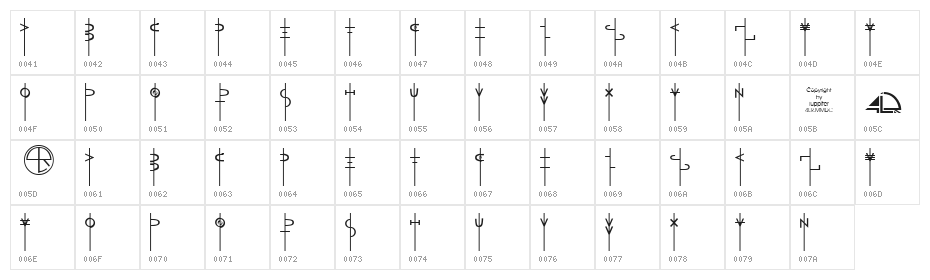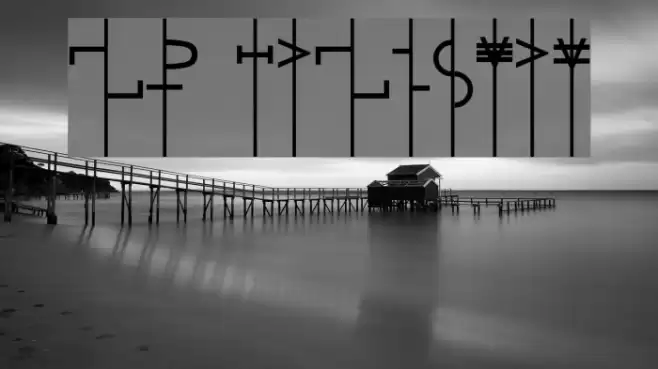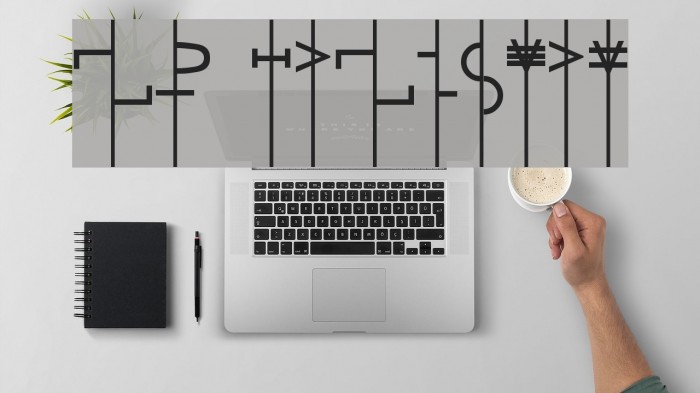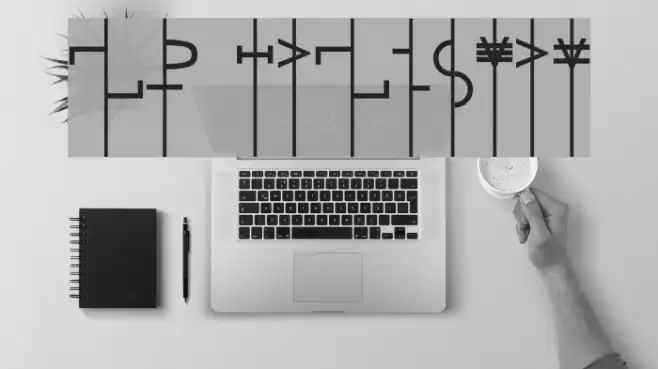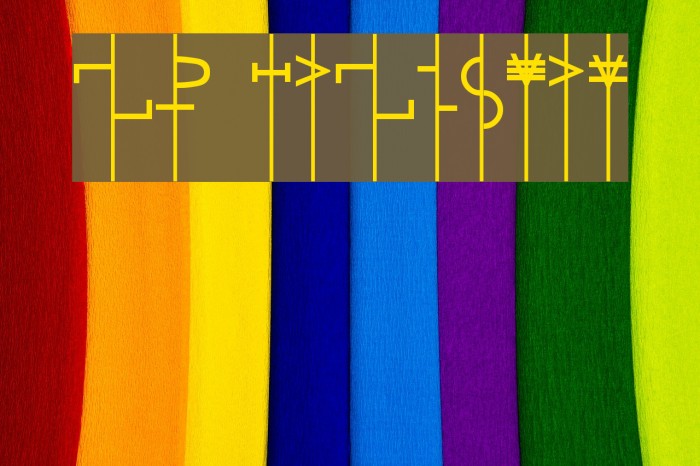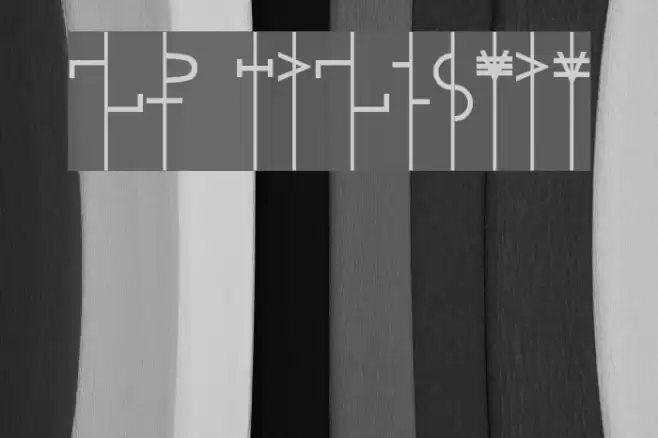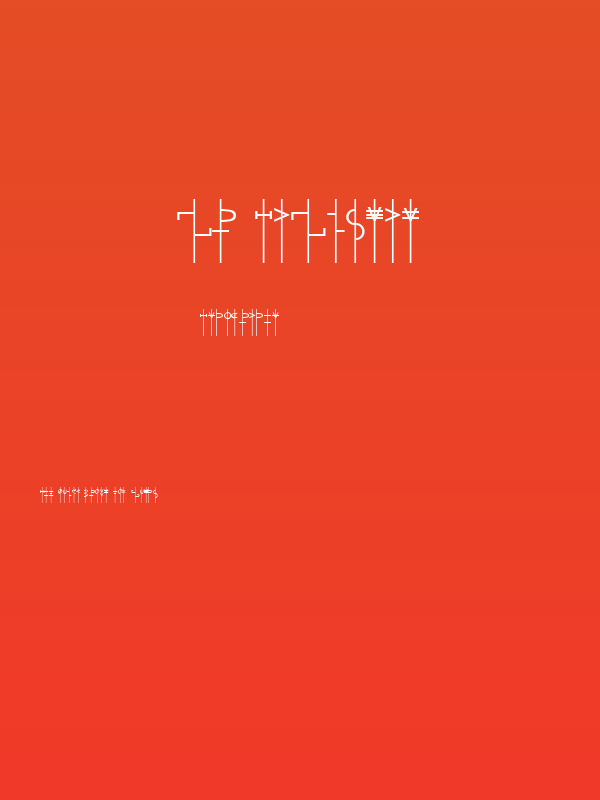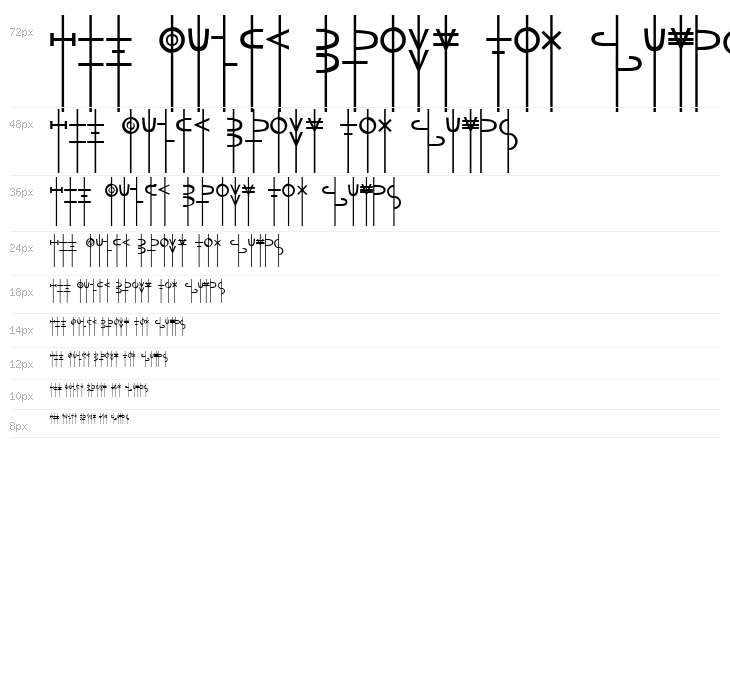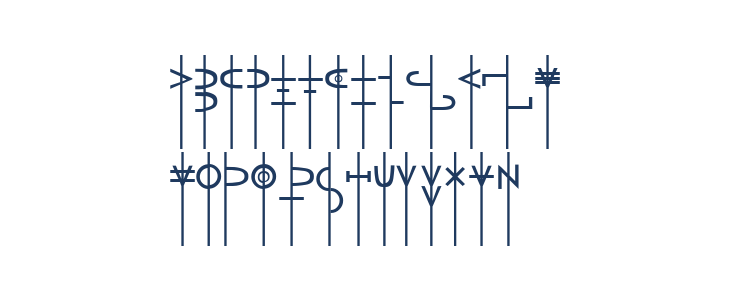
LR Talisman Font
LR Talisman Description
This font features a unique and abstract design, characterized by intricate geometric shapes and lines that form each character. The letters are composed of various intersecting lines and curves, creating a complex and artistic appearance. The style is reminiscent of ancient symbols or runes, giving it a mystical and enigmatic feel. The characters are evenly spaced, with a consistent height and width, providing a balanced and harmonious look. This font is highly decorative and is likely intended for artistic or thematic use rather than practical text applications.
| Overall Style | Mystical, Artistic |
| Use Case | Logos, Posters, Thematic Designs |
| Proposed Projects | Ideal for use in fantasy-themed designs, artistic projects, or as decorative elements in graphic design. |